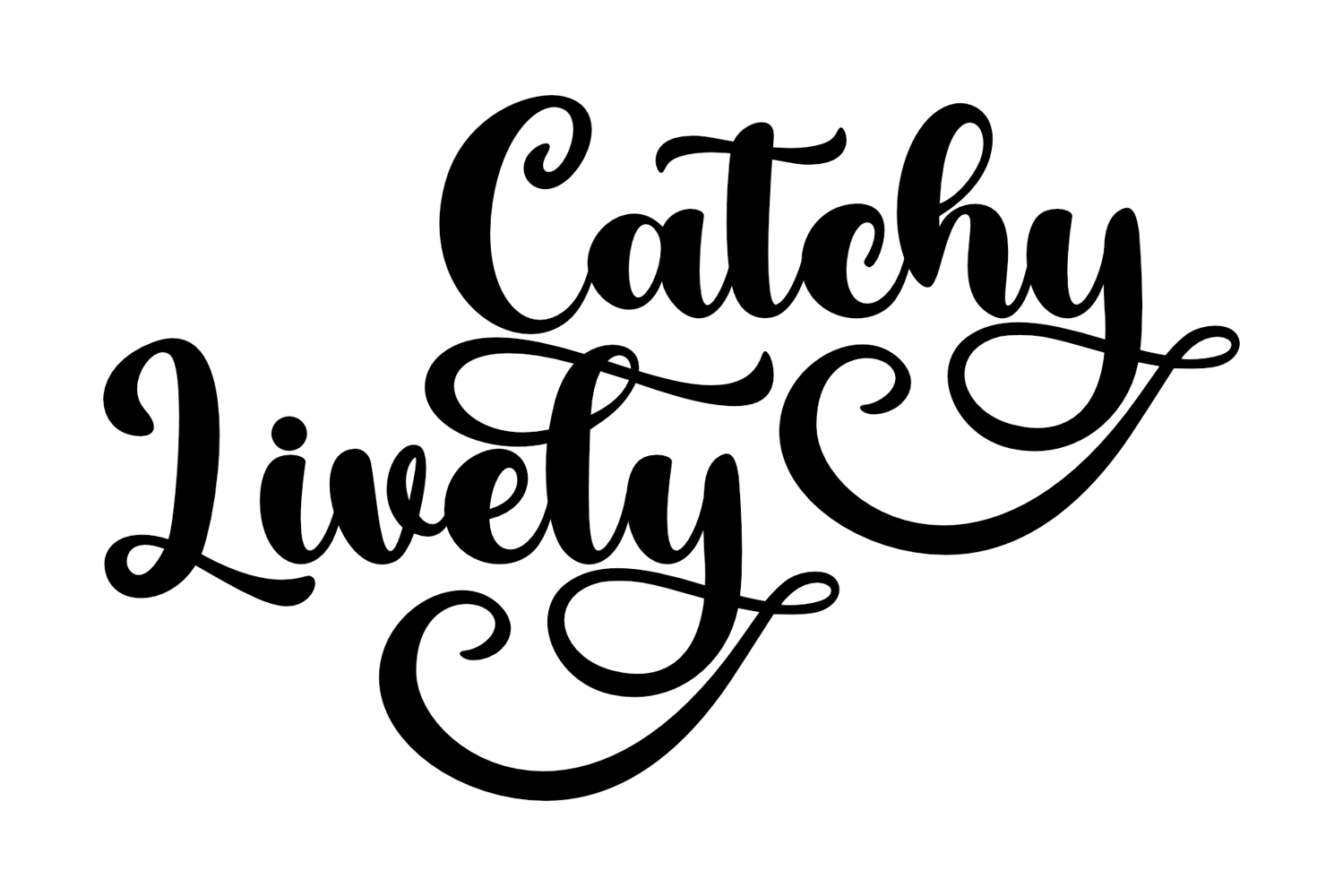
Catchy Lively
Catchy Lively is a modern and playful font design with a unique blend of bold and curvy strokes. Perfect for eye-catching headlines, logos, and branding materials. This premium font exudes energy and liveliness, making it ideal for projects that require a lively and dynamic feel.